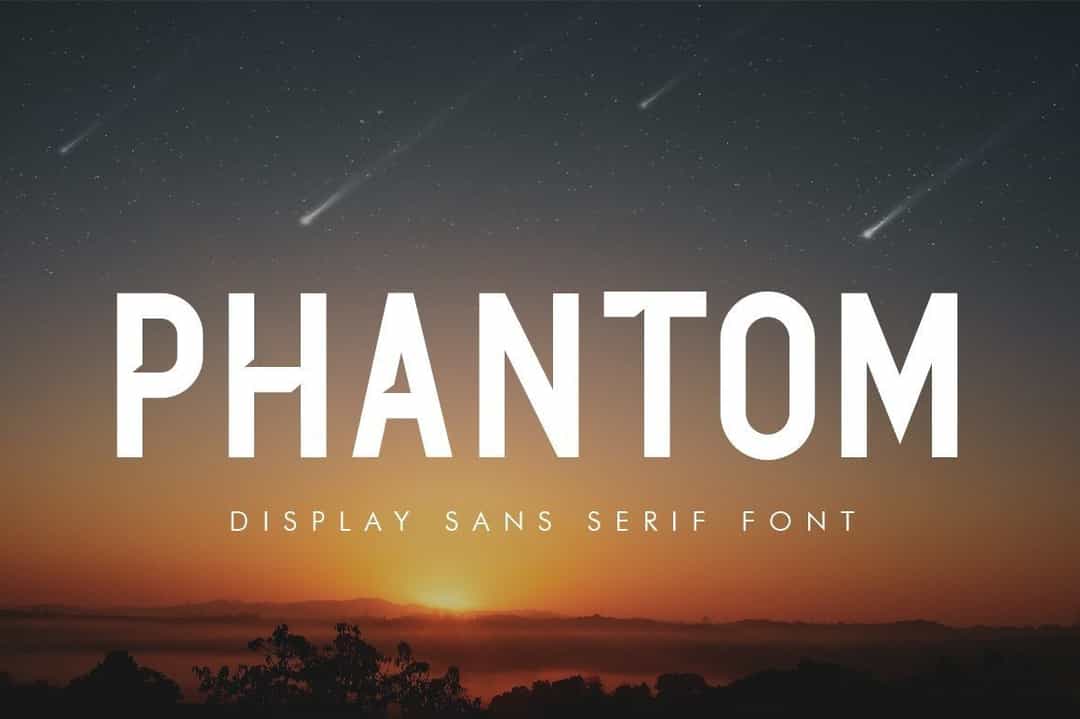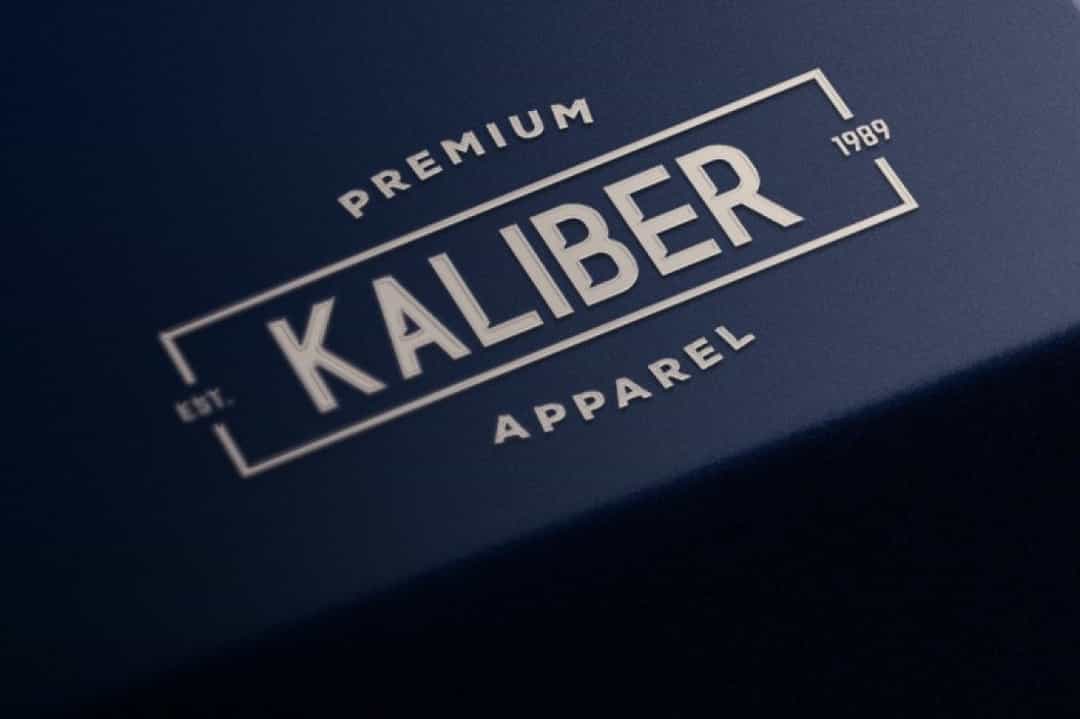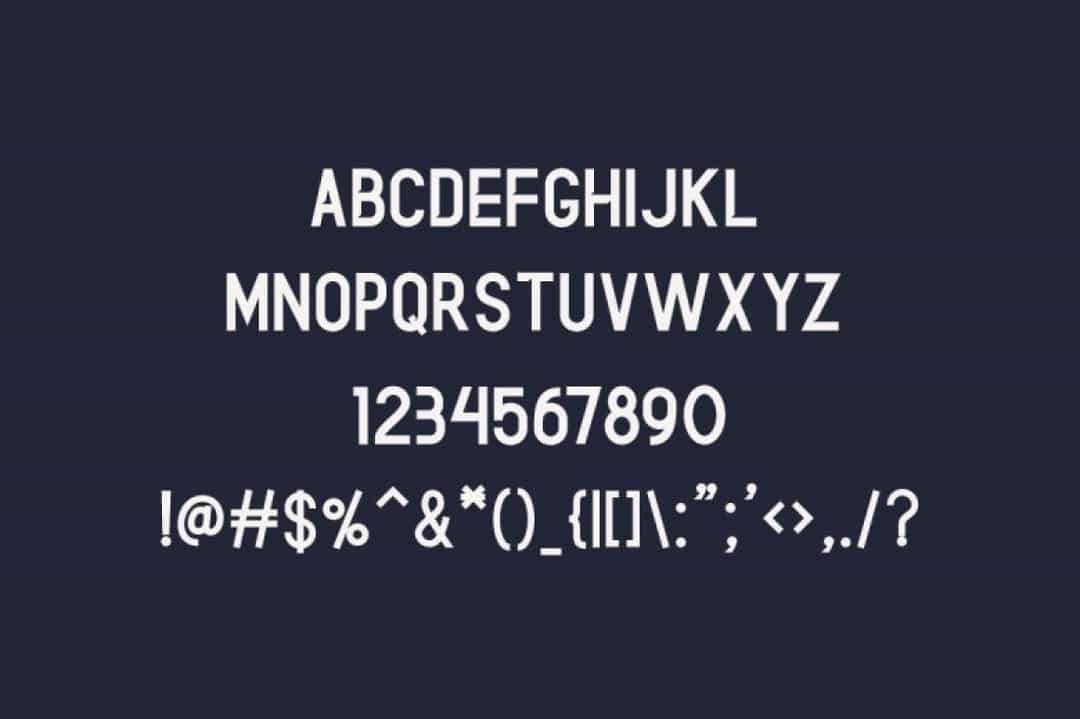
Phantom is an original and beautiful sans-serif display typeface designed to meet any artistic need, from creating logotypes to logo designs. Ideal for use in logo designs, social media post titles or movie title scrolls as well as short and lengthy texts with serif or sans fonts secondary fonts are perfect additions for this font family.